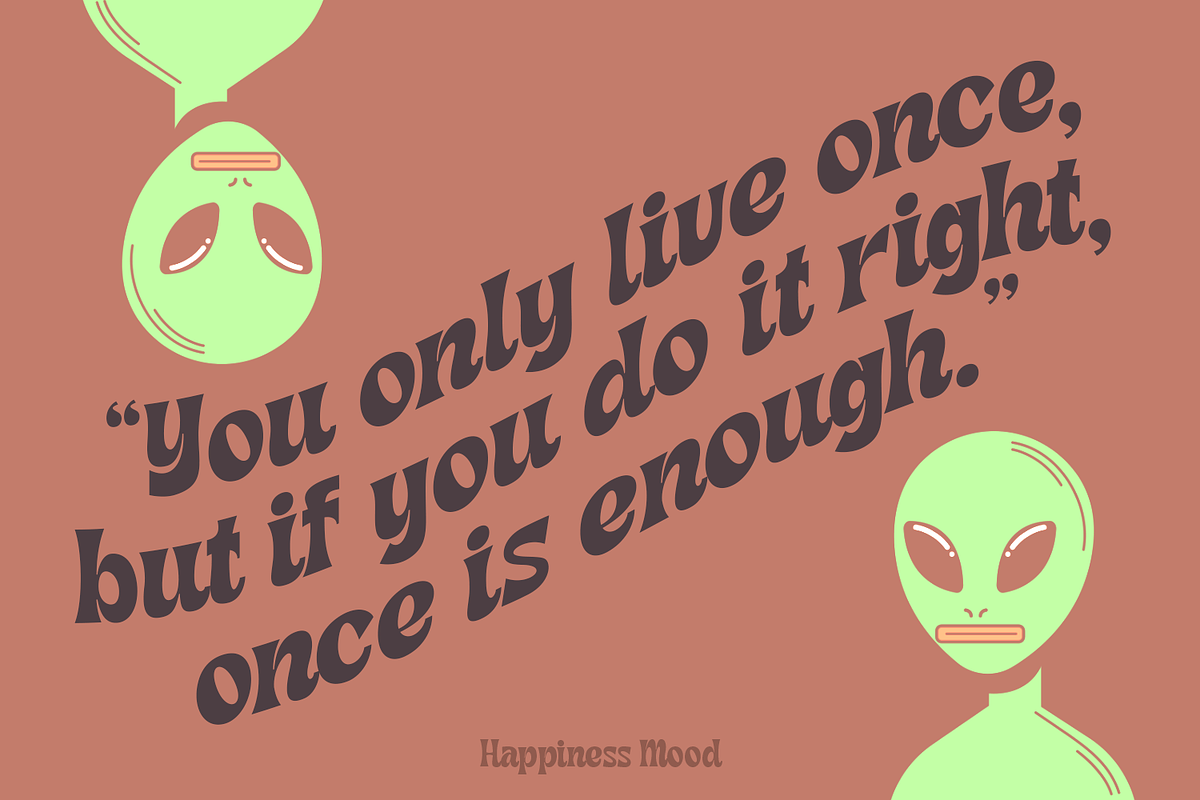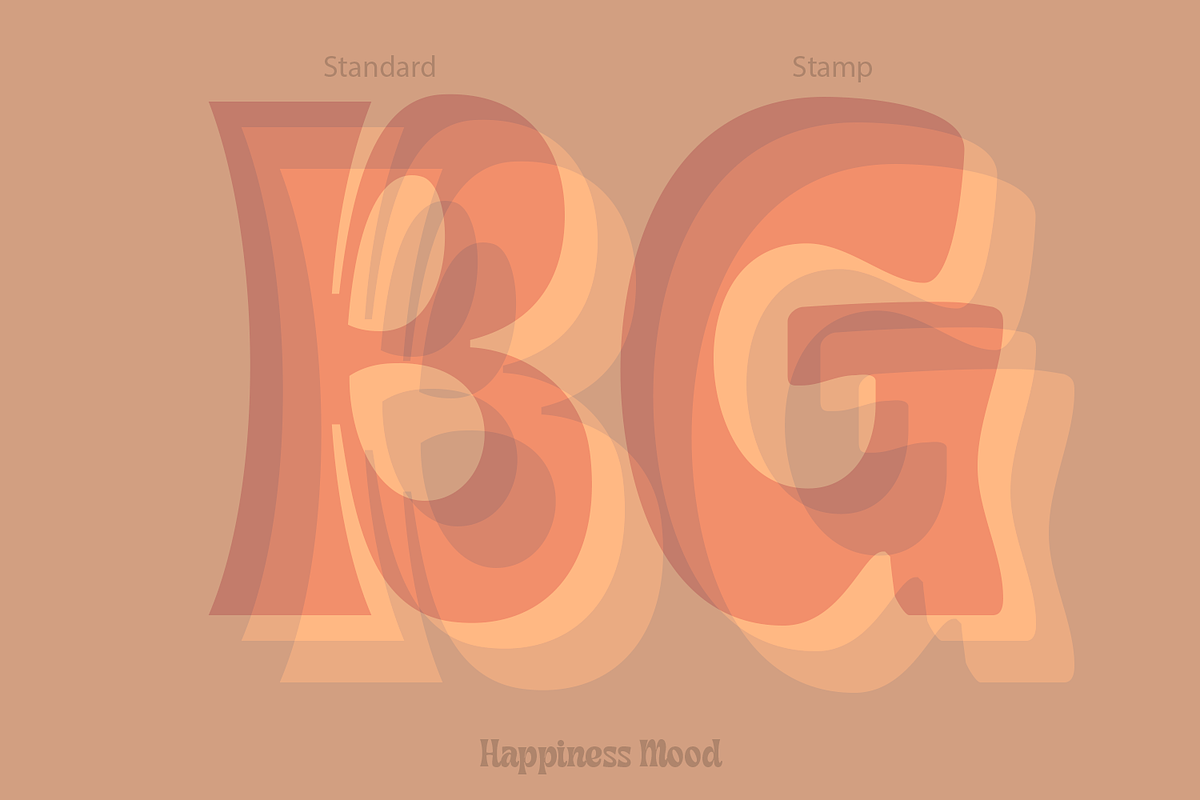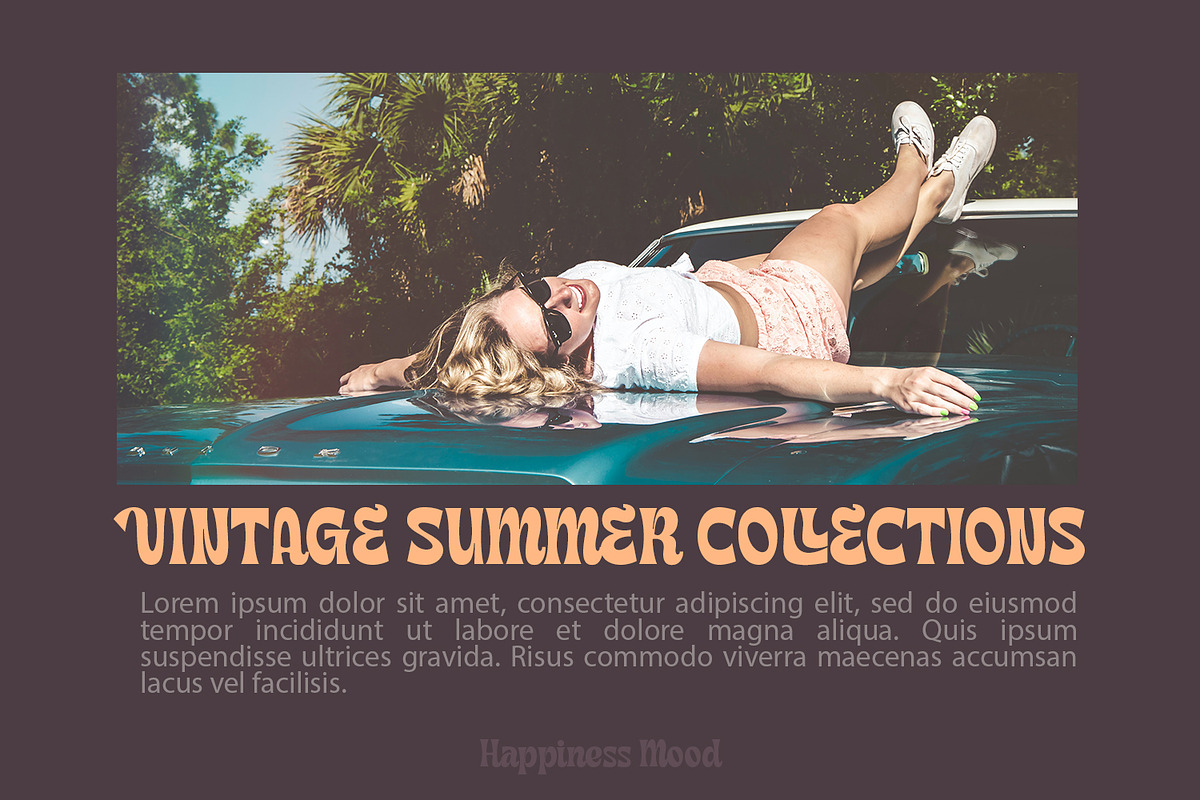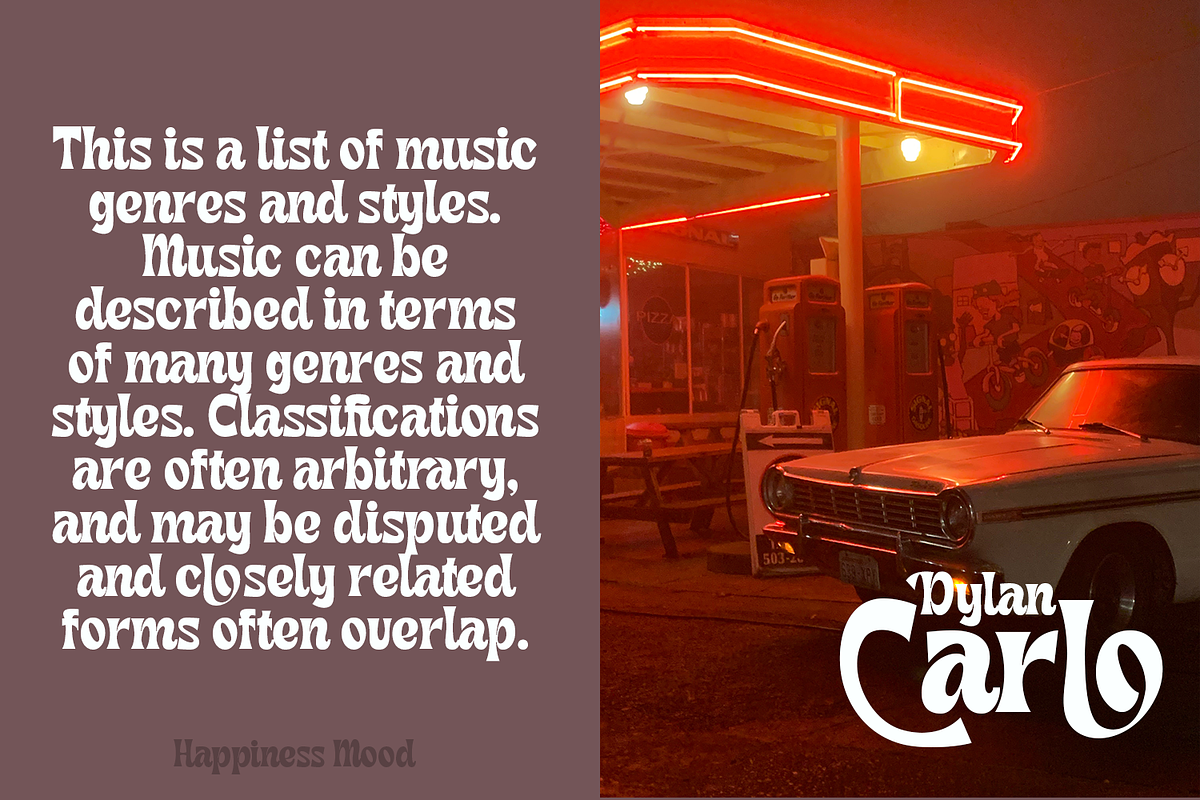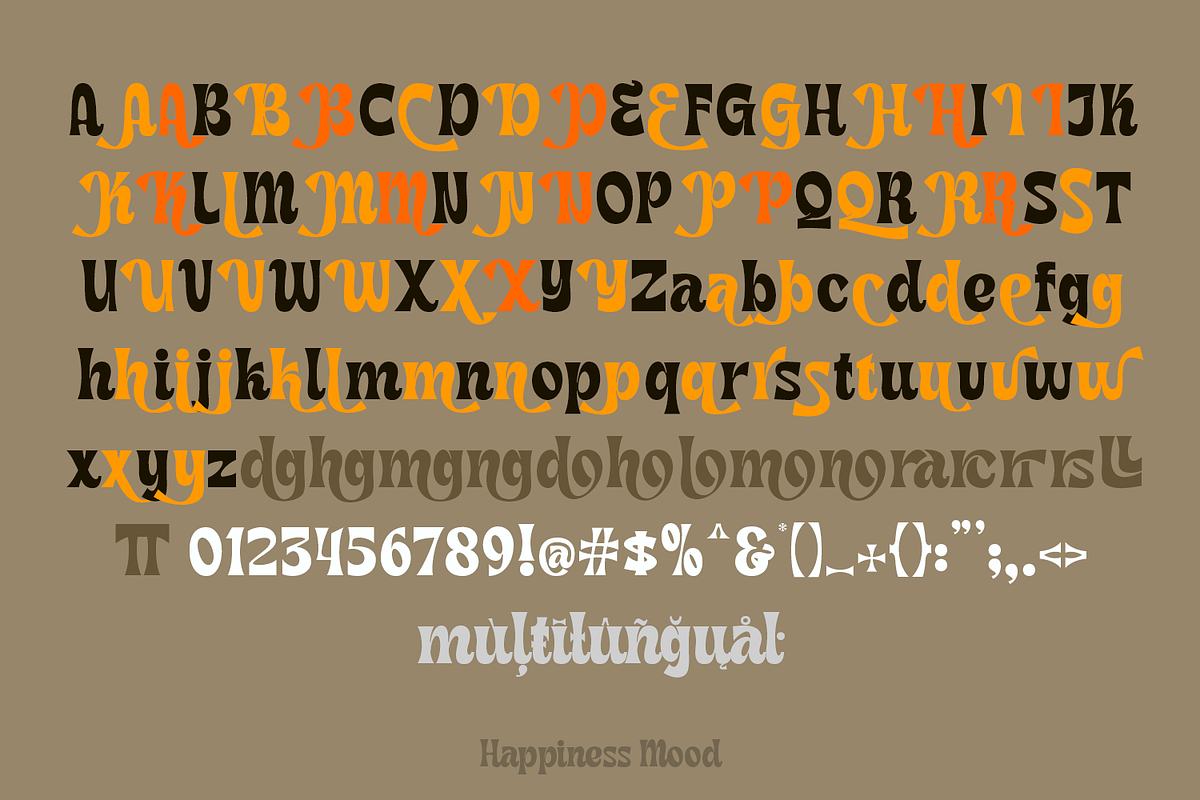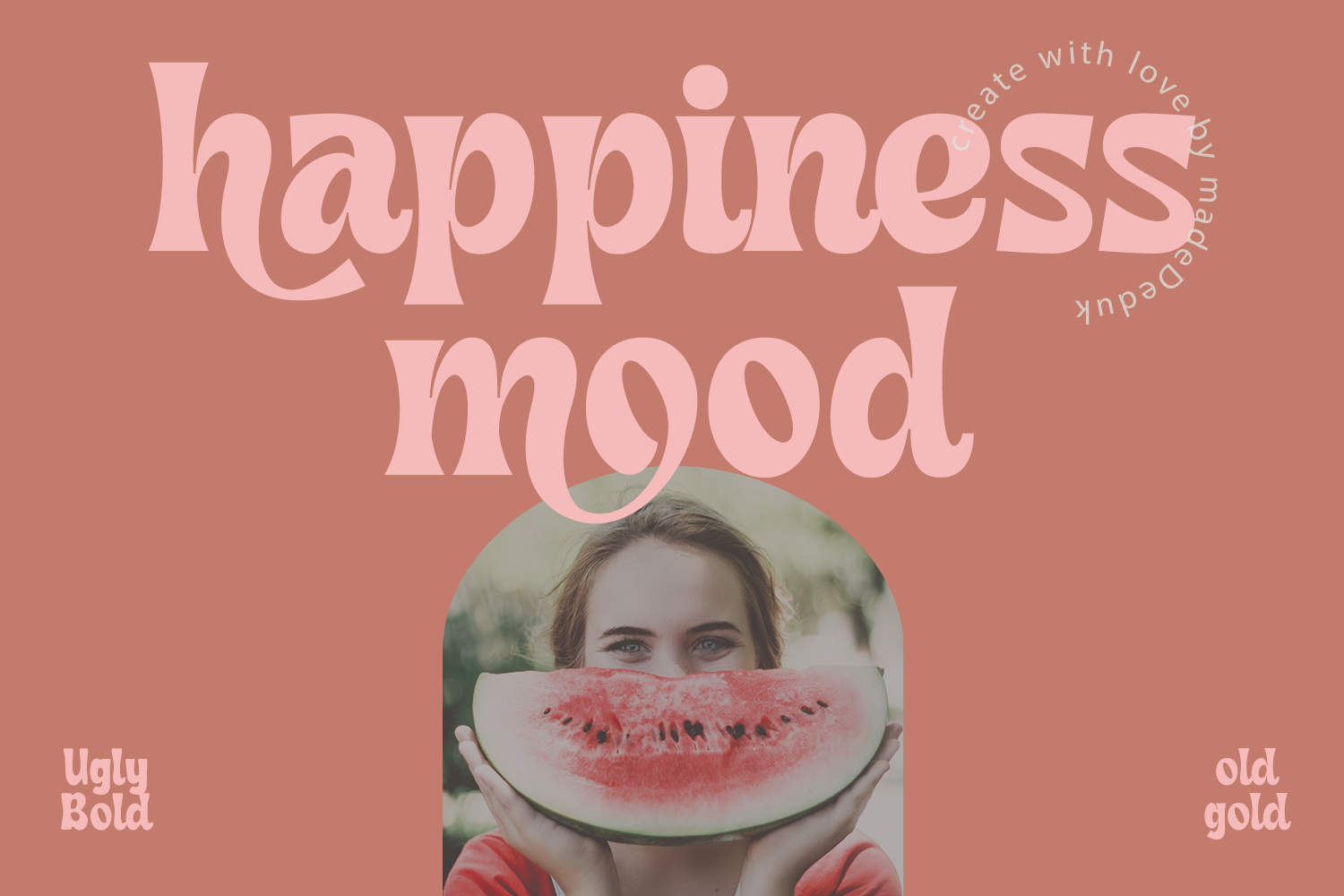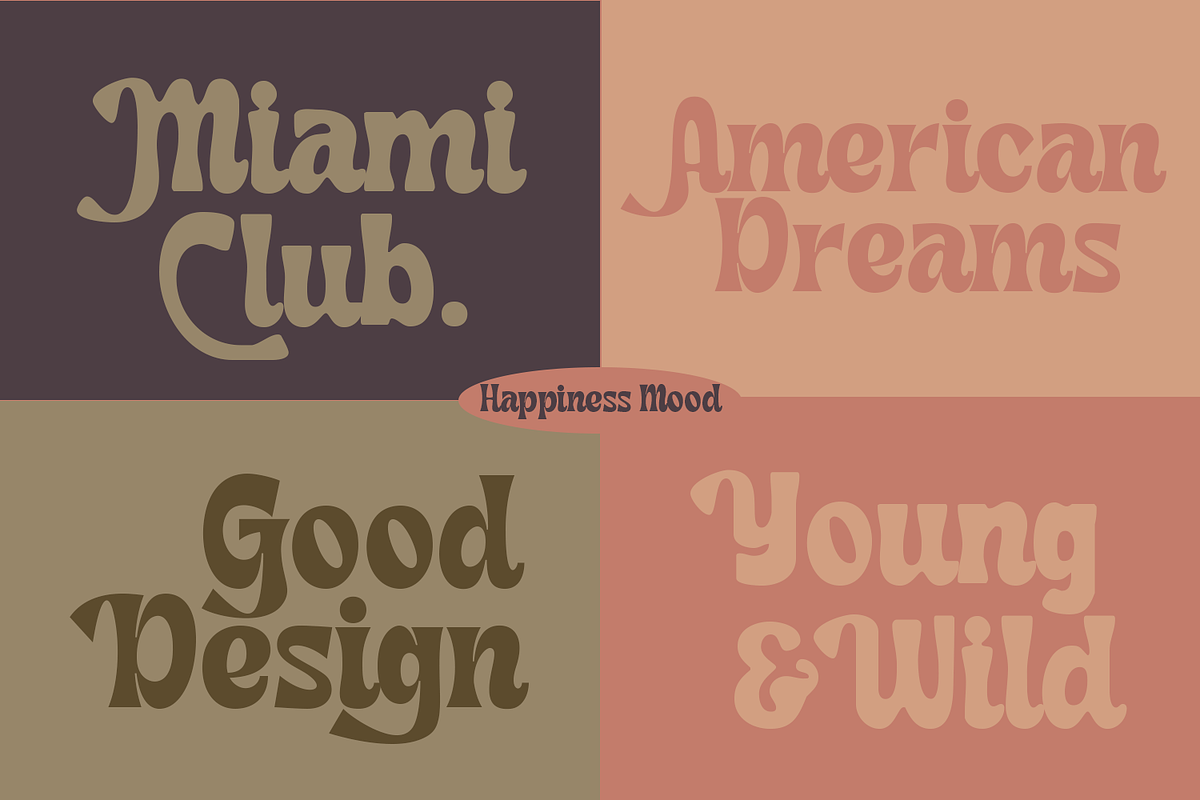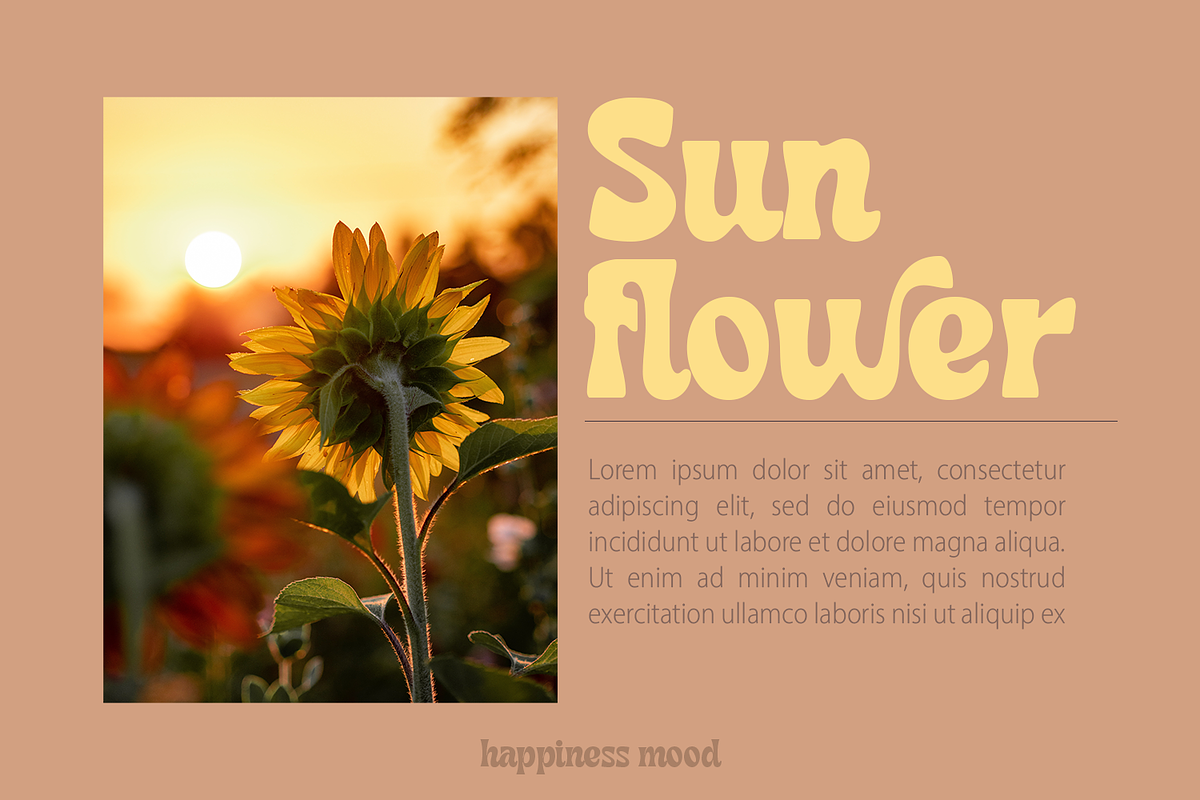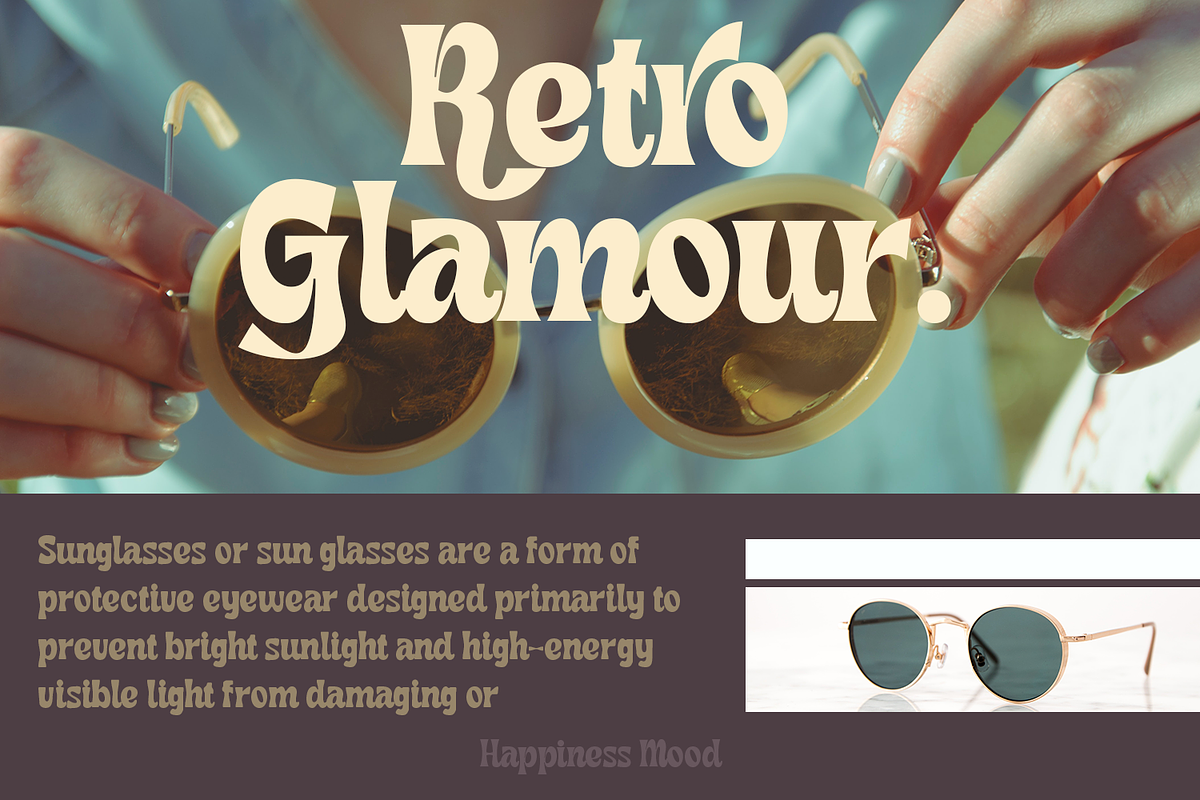
Happiness Mood - Retro Fonts
Introducing Happiness Mood Retro Fonts, comes with 2 styles clean and stamp style. Use this font for any branding, product packaging, invitation, quotes, t-shirt, label, poster, logo etc.